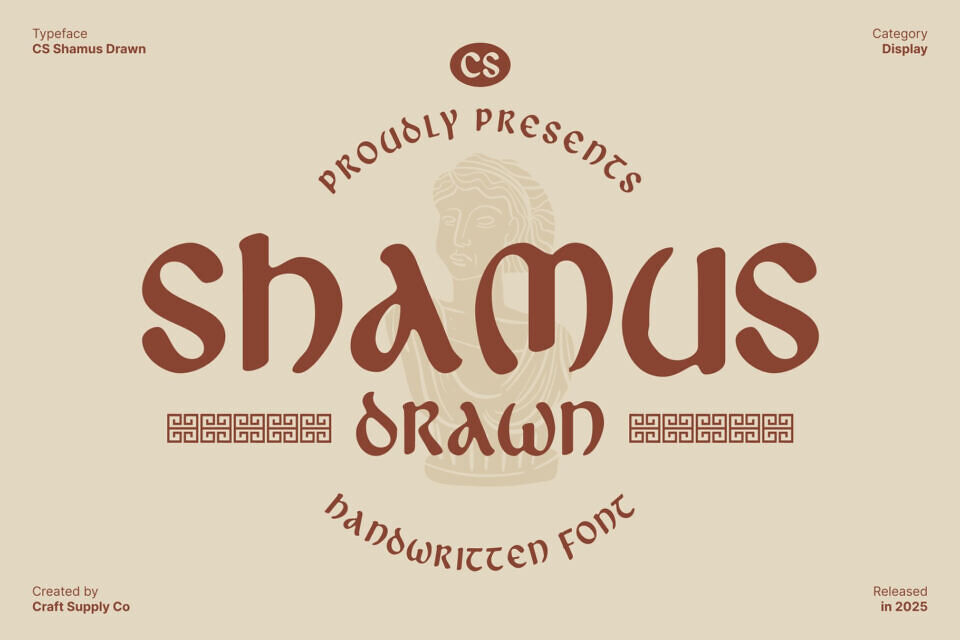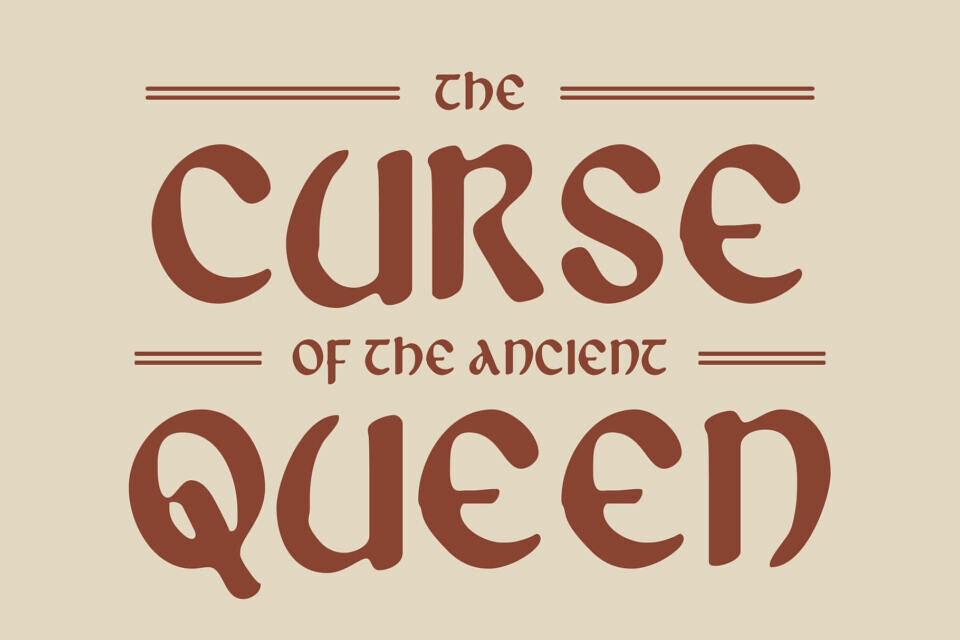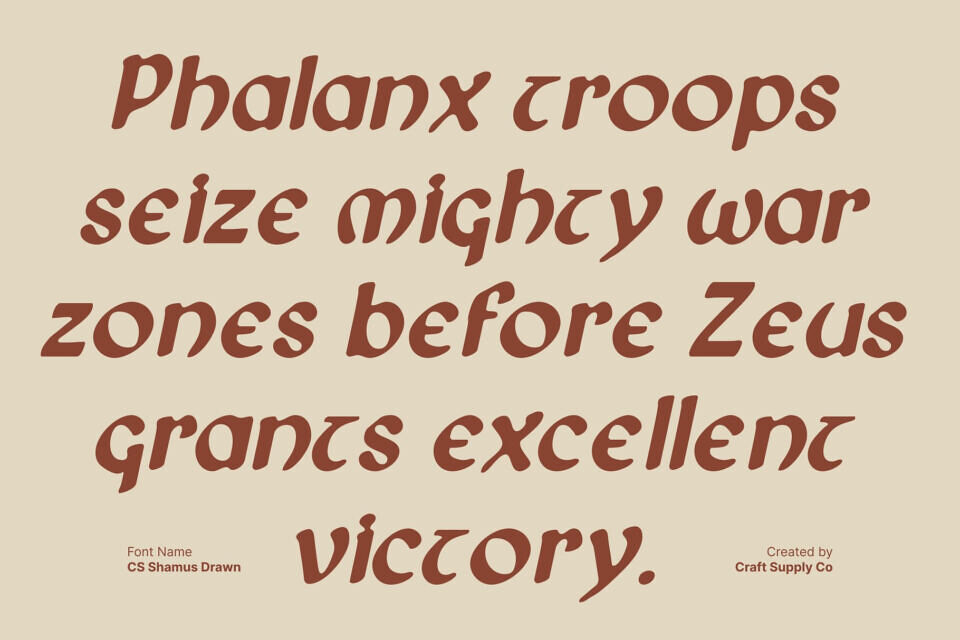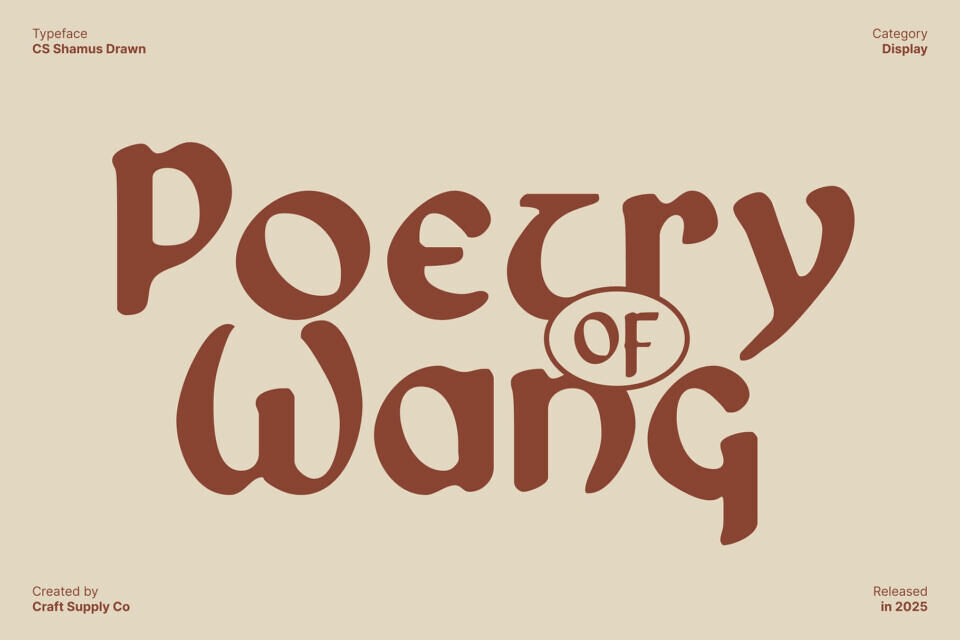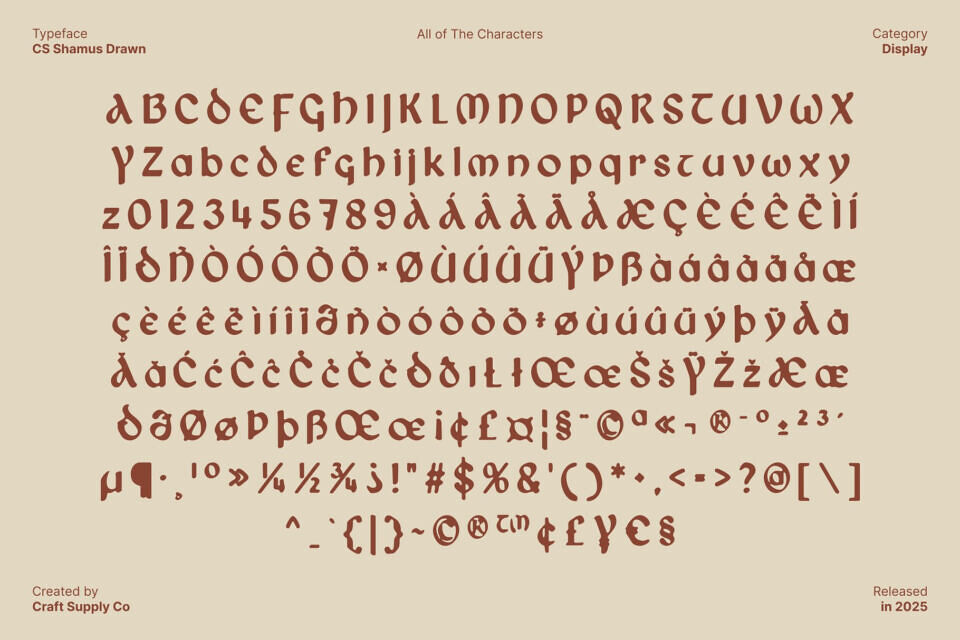
CS Shamus Drawn Font
CS Shamus Drawn is a display font inspired by uncial letterforms, known for their rounded curves and historical significance. These distinctive shapes echo ancient manuscripts and early calligraphic traditions, bringing a sense of heritage, authority, and timeless beauty into contemporary design. The uncial influence creates a strong visual identity that feels classic, cultured, and rich with historical depth.
The drawn effect adds a layer of artistic expression that transforms the font from purely classical into something more personal and expressive. Designed to stand out in display settings, this font excels in luxury branding, book titles, posters, and editorial layouts.